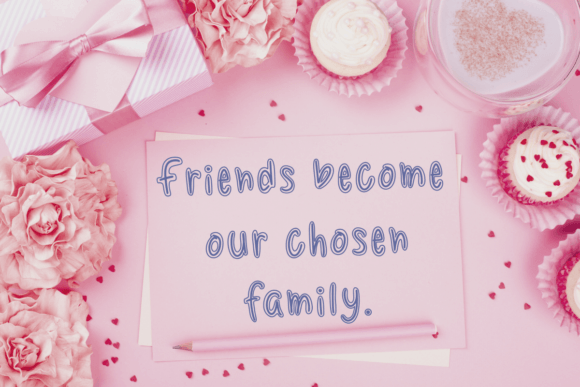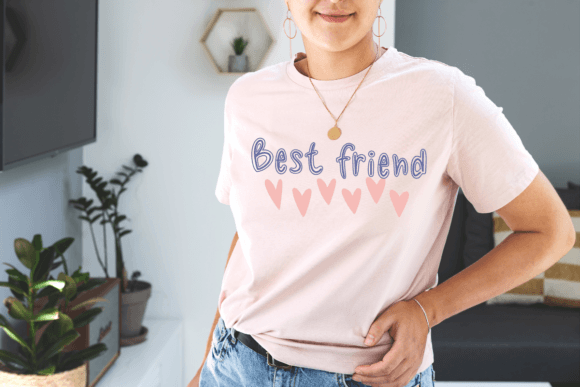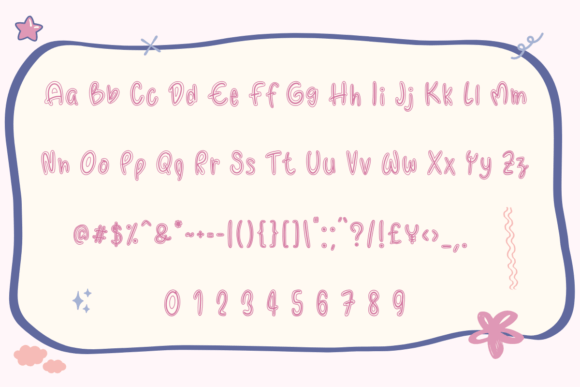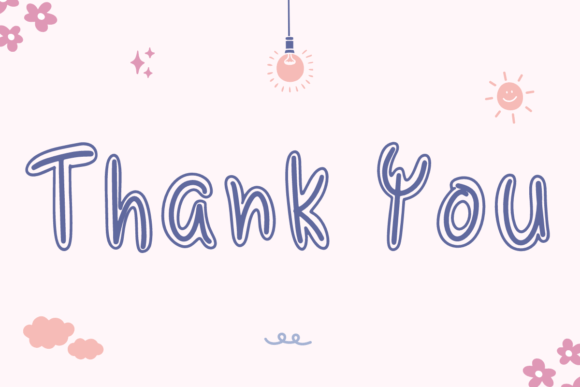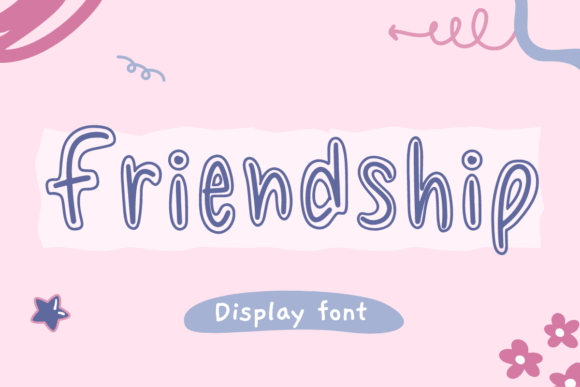
Introducing Friendship Font: The Perfect Addition to Your Design Projects
Are you a designer, crafter, or DIY enthusiast looking for a unique and stylish font to elevate your projects? Look no further than Friendship Font, a beautiful display font that’s perfect for a wide range of applications. In this article, we’ll explore the features and benefits of Friendship Font, and show you how it can add a touch of personality to your designs.
What is Friendship Font?
Friendship Font is a carefully crafted display font that’s designed to make a statement. With its elegant and playful style, it’s ideal for use in various projects such as blog posts, ads, invitations, greeting cards, planners, photo albums, decorations, and much more. Whether you’re a professional designer or a hobbyist, Friendship Font is a versatile and easy-to-use font that can add a personal touch to your creations.
Key Features of Friendship Font
- Unique and stylish design: Friendship Font boasts a distinctive and eye-catching design that’s sure to grab attention.
- High-quality and clear: The font is designed to be clear and legible, making it perfect for use in a variety of projects.
- Easily customizable: Friendship Font is easy to customize, allowing you to adjust the font size, color, and style to suit your needs.
Benefits of Using Friendship Font
So why choose Friendship Font for your design projects? Here are just a few benefits of using this amazing font:
- Adds a personal touch: Friendship Font allows you to add a personal touch to your designs, making them stand out from the crowd.
- Enhances creativity: The font’s unique design and versatility can help spark your creativity and inspire new ideas.
- Saves time: With Friendship Font, you can quickly and easily create professional-looking designs without spending hours searching for the perfect font.
- Perfect for various projects: The font’s versatility makes it suitable for use in a wide range of projects, from blog posts and ads to invitations and decorations.
How to Use Friendship Font in Your Designs
Using Friendship Font in your designs is easy. Here are a few tips to get you started:
- Pair it with other fonts: Friendship Font pairs well with other fonts, so feel free to experiment with different combinations to create a unique look.
- Experiment with colors: The font looks great in a variety of colors, so don’t be afraid to try out different hues and shades.
- Use it in headlines and titles: Friendship Font is perfect for use in headlines and titles, where its bold and playful style can really make an impact.